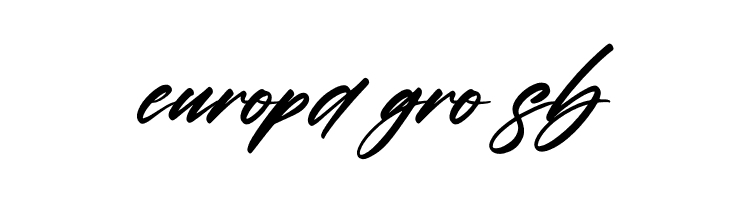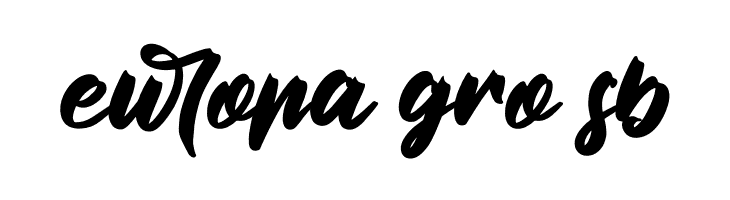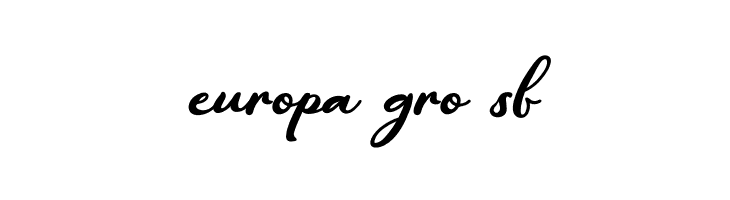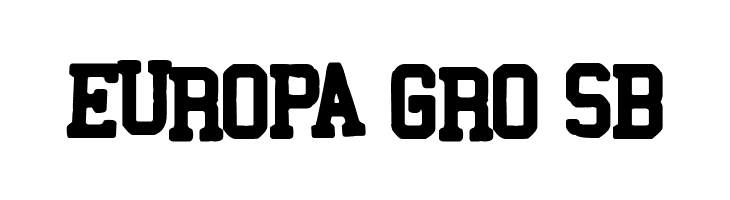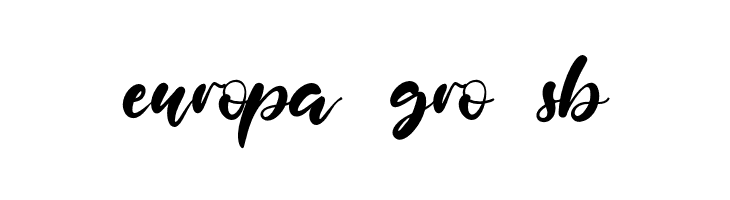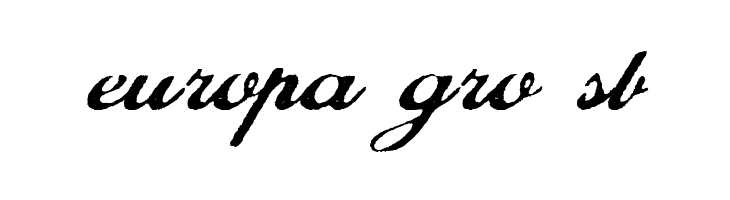
A bold, cursive script font with high contrast and elegant flow.
A dynamic, cursive font with fluid, slanted characters.
A bold, dynamic script font with fluid, connected letters and a strong presence.
An elegant, flowing script font with a classic calligraphic style.
An elegant script font with flowing, interconnected characters and ornate flourishes.
A fluid, elegant handwritten font with a natural flow and delicate strokes.
A bold, vintage-style font with thick, blocky characters ideal for impactful designs.
A bold, flowing script font with elegant curves and a lively character.
A bold, flowing script font with elegant flourishes and high contrast.
An elegant script font with flowing, ornate characters.